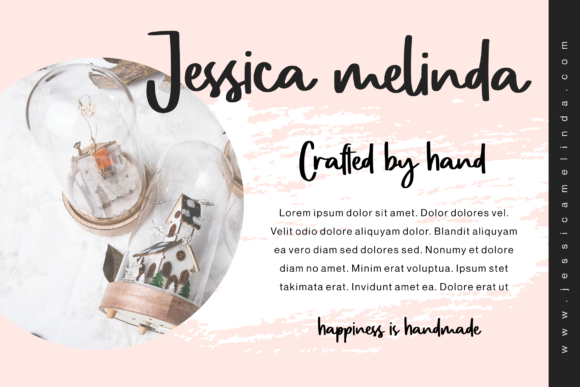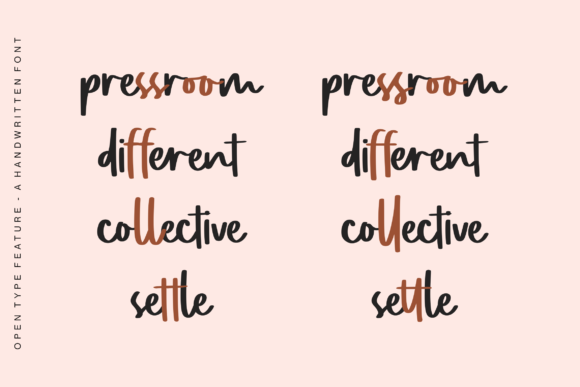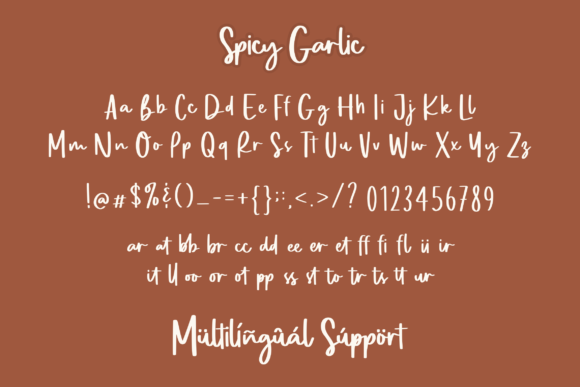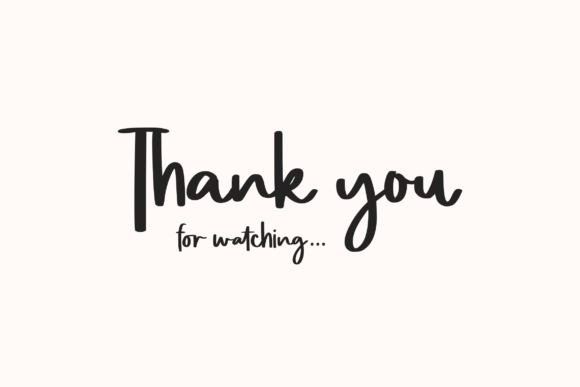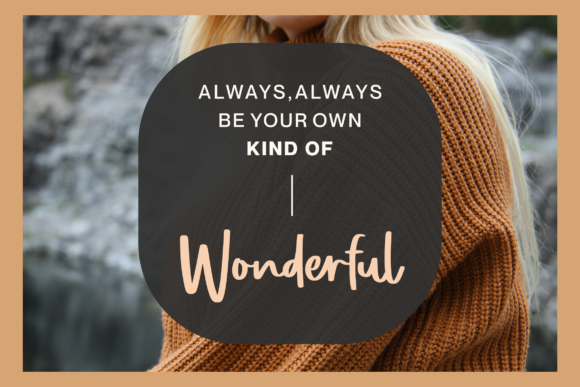
About Spicy Garlic Font
Spicy Garlic is a casual, relaxed and asymmetrical handwritten font. This font is PUA encoded which means you can access all glyphs and swashes with ease! Its sweet and full of life style makes this font a wonderful choice for brightening up your designs.